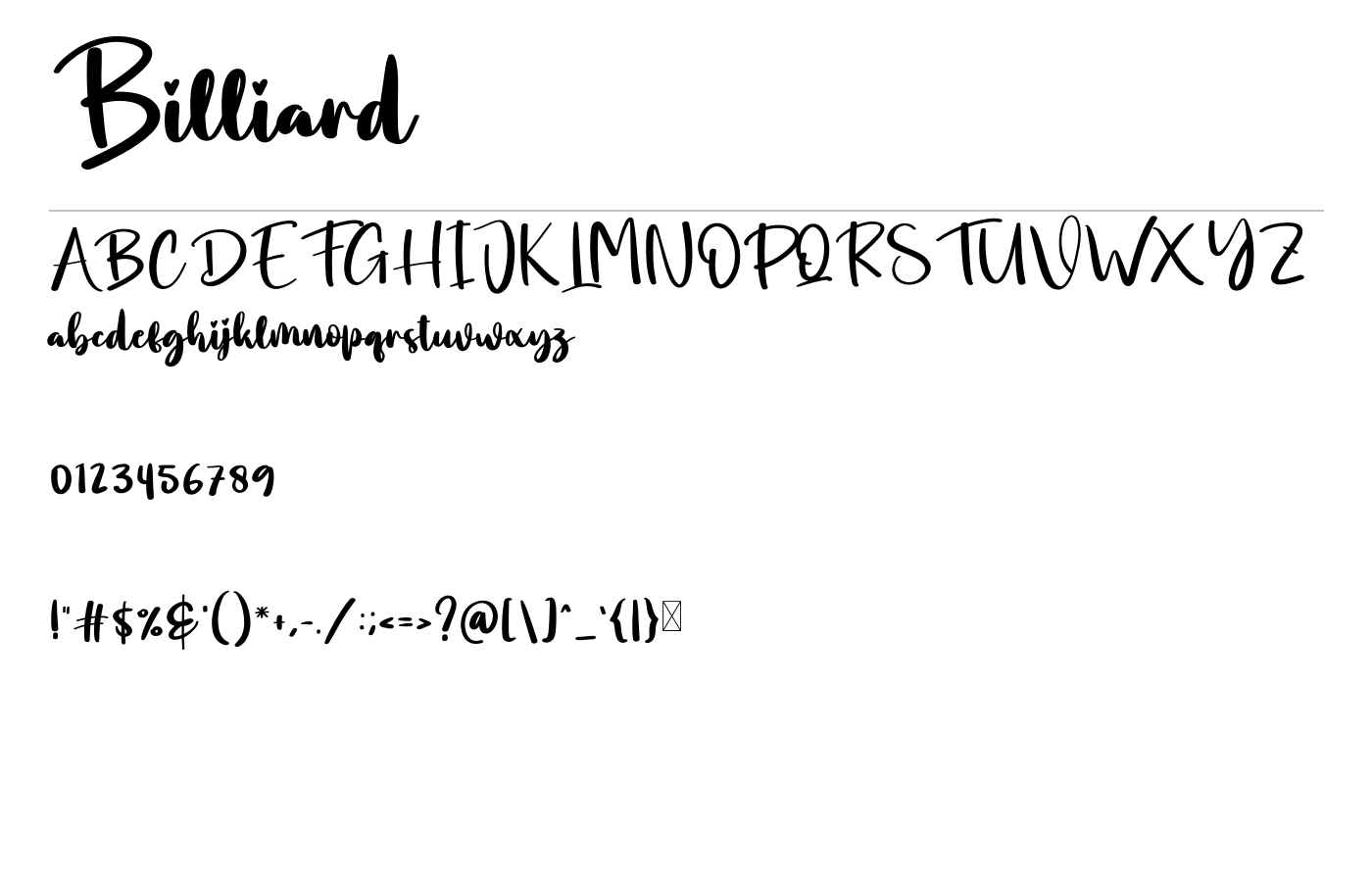
Billiard is a lively and casual script font with a handwritten feel, featuring smooth, flowing strokes and playful heart-shaped dots on lowercase "i"s. Its combination of bold, rounded lowercase letters and slender, slightly quirky uppercase characters makes it perfect for fun, creative projects like branding, invitations, and social media. This font brings a friendly, approachable vibe that works well for fashion, lifestyle, and informal editorial uses.
Billiard Font
About Billiard Font